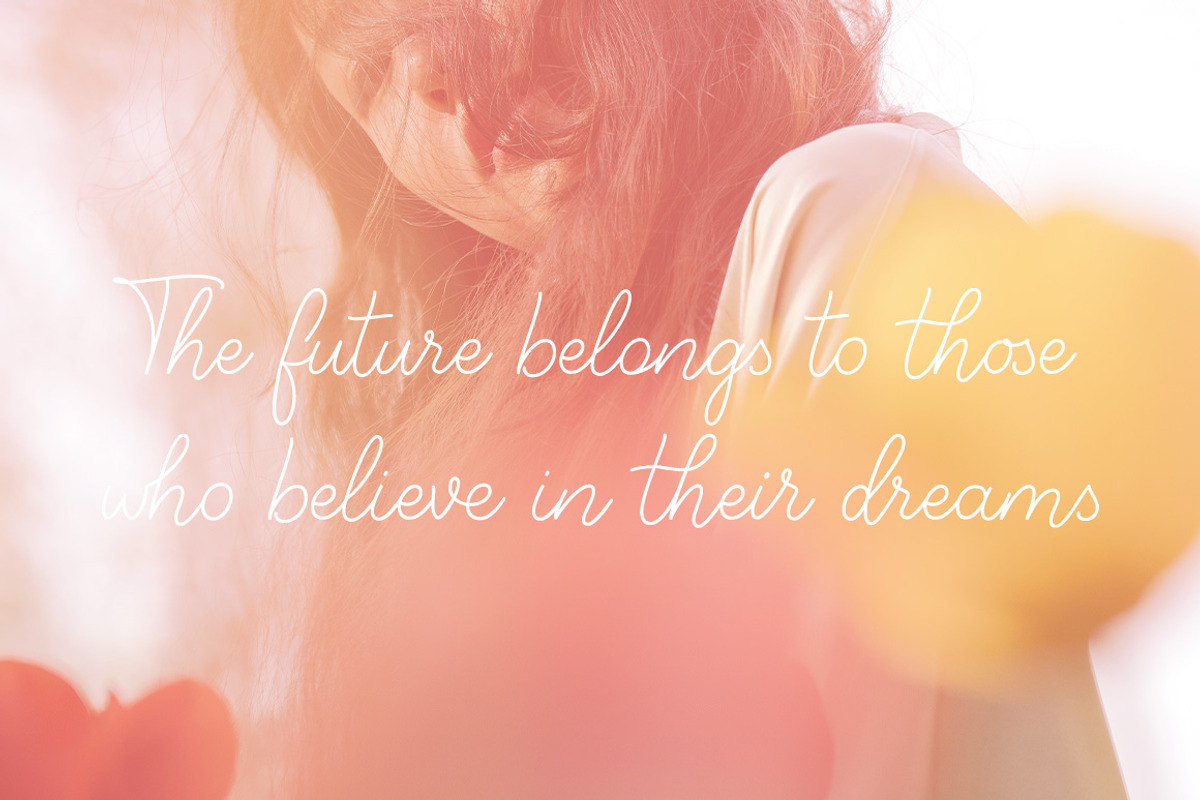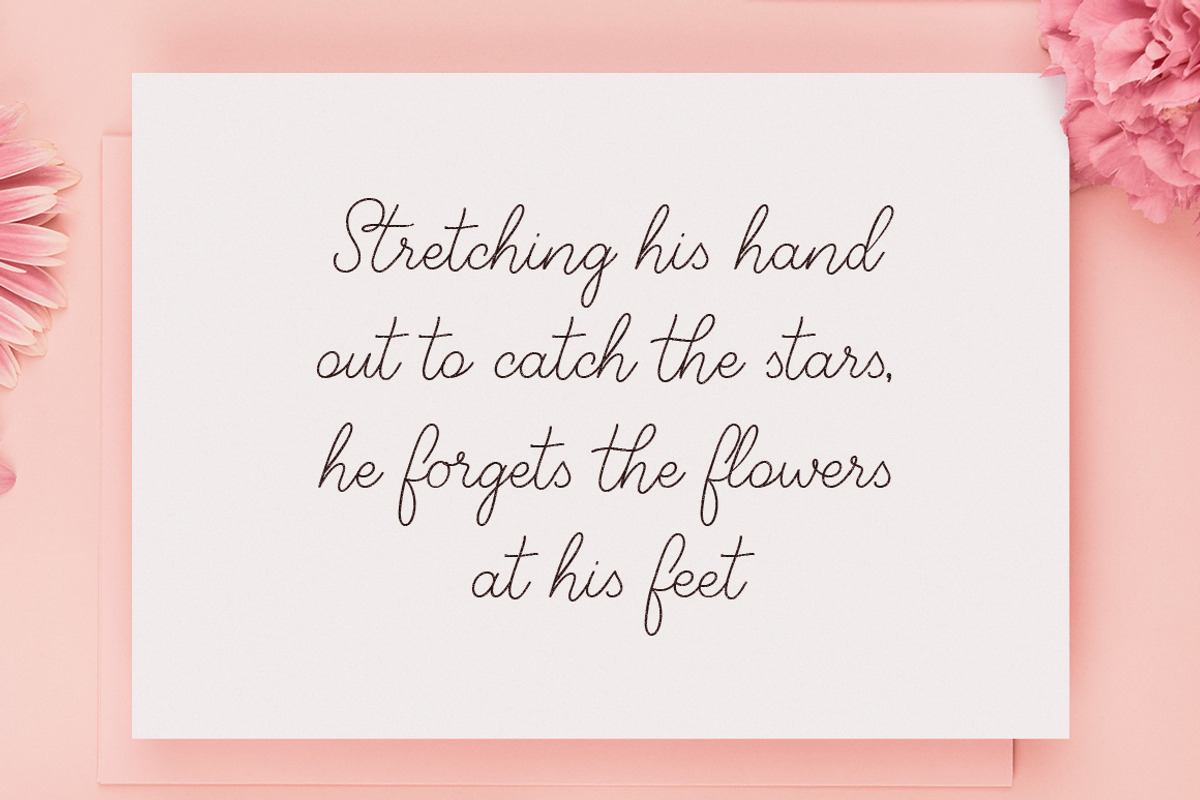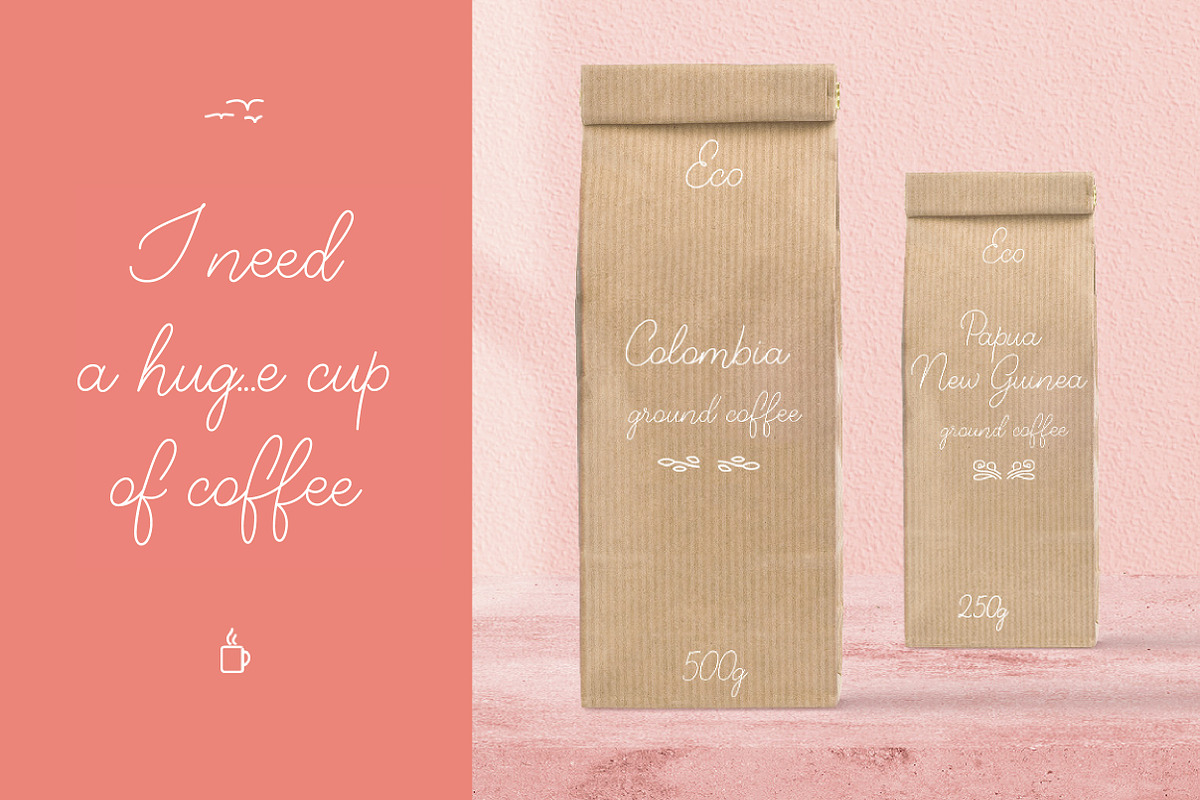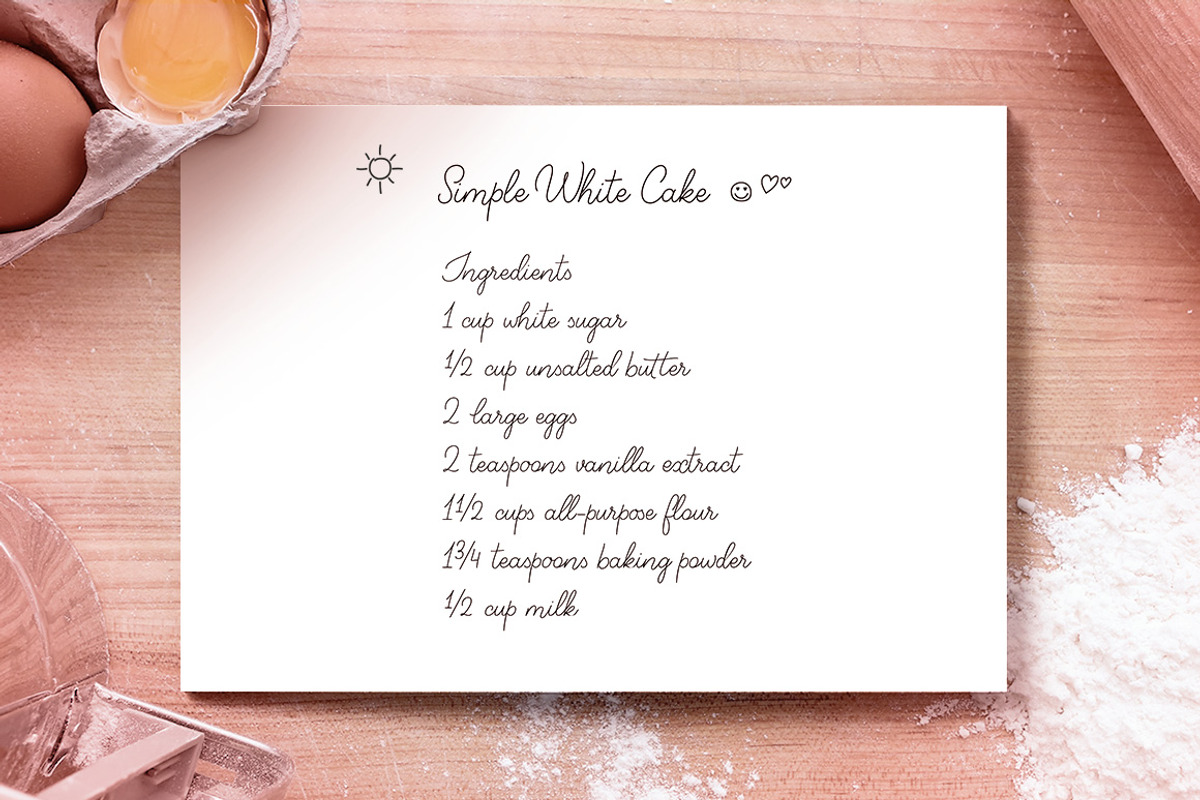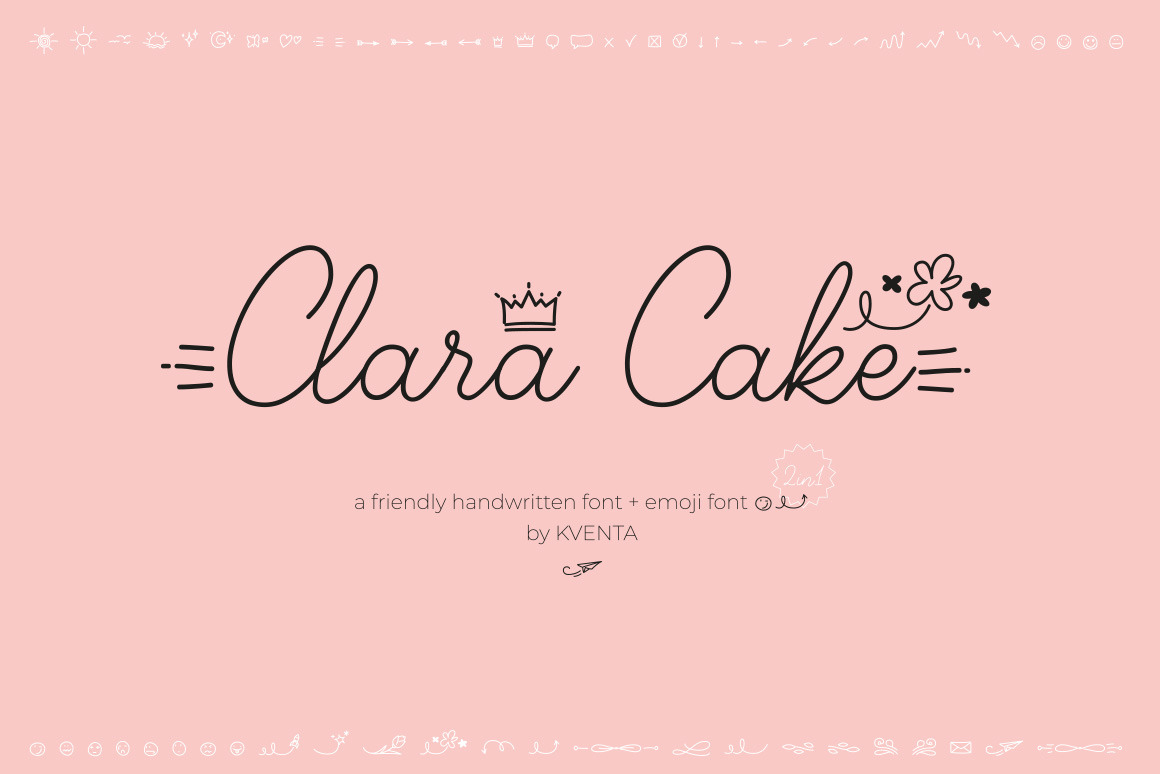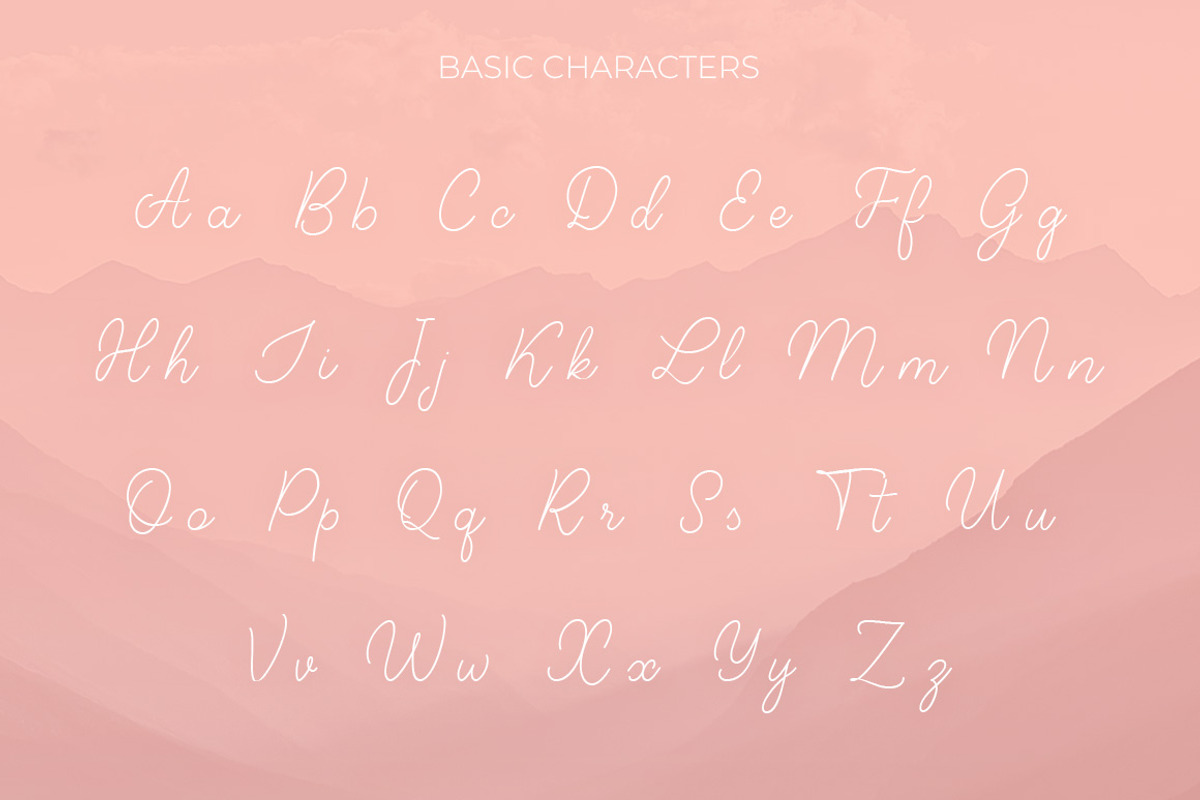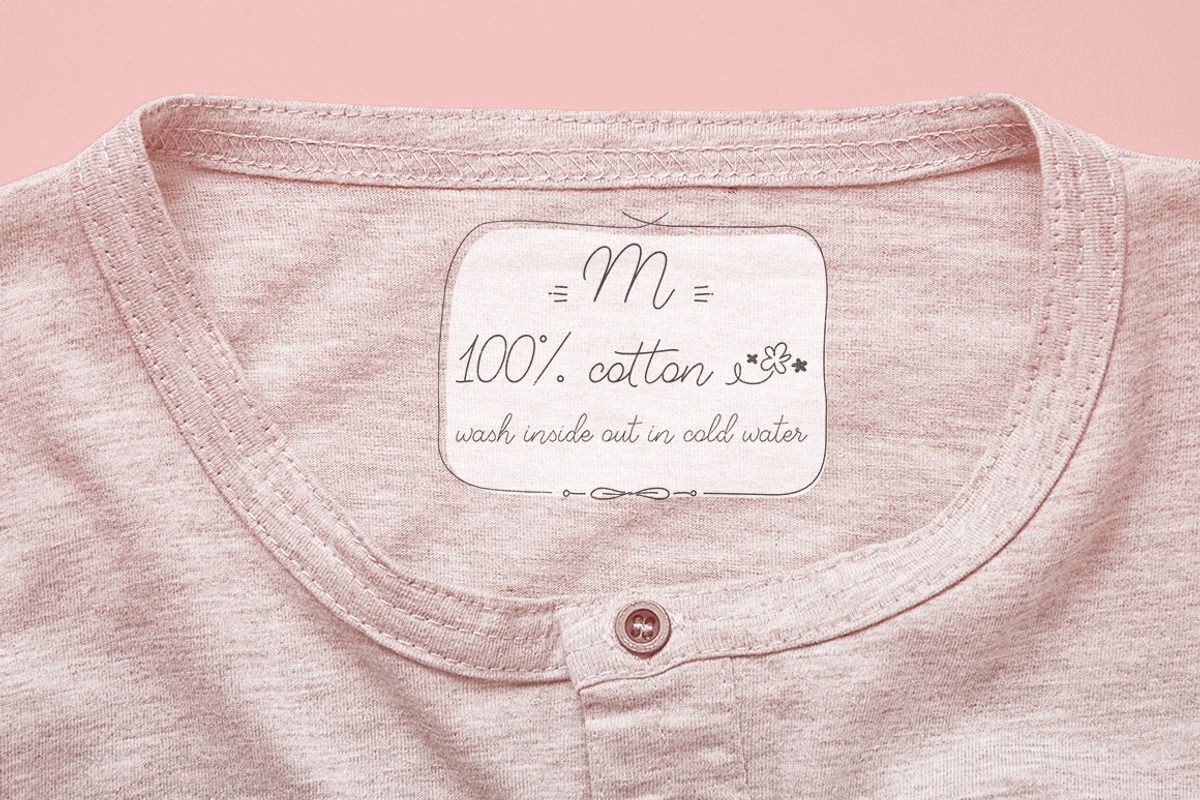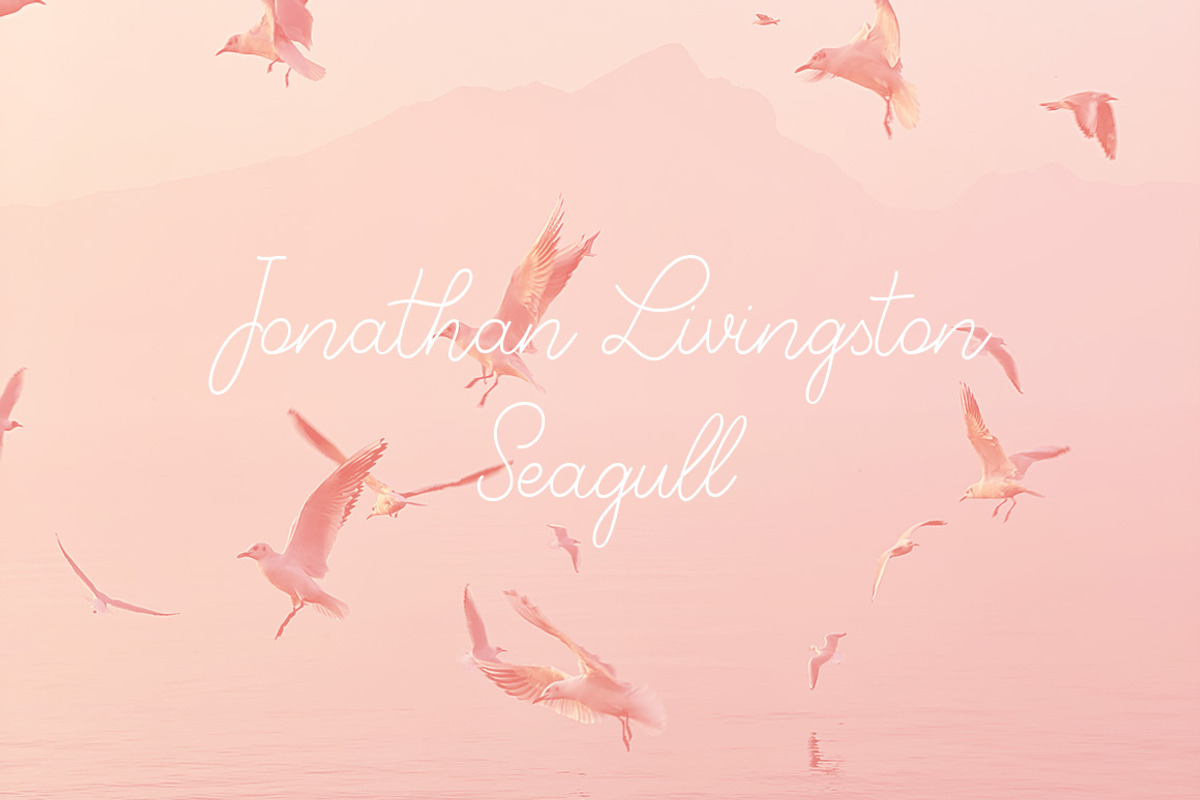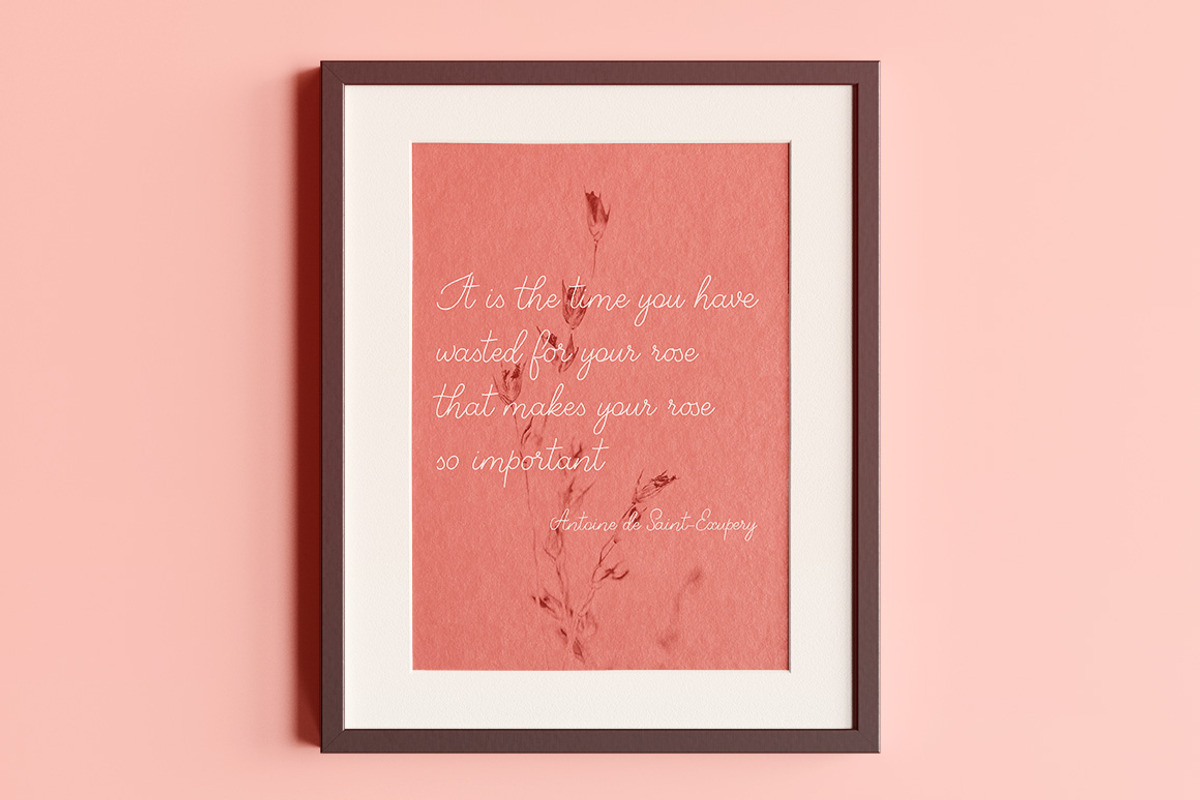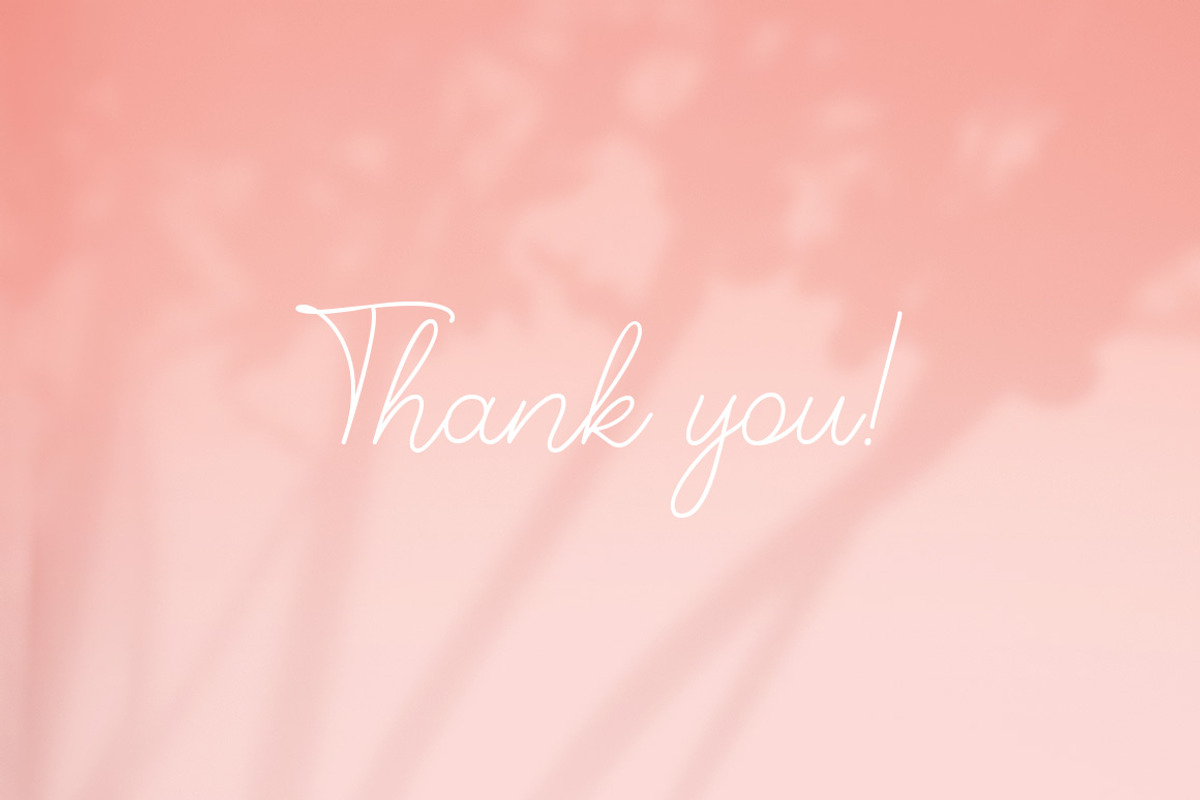
Clara Cake Script + emoji font
Clara Cake is a friendly handwritten font + BONUS Clara Cake emoji font
A light modern script font. Includes uppercase, and lowercase characters, punctuation, numerals, and ligatures. In order to use ligatures, you need a program that supports OpenType features such as Adobe Illustrator CS, Adobe Photoshop CC, Adobe Indesign, and Corel Draw. Please turn this feature on before using it!
Clara Cake emoji - is a hand-drawn icon set, perfect for creating beautiful quotes, social media posts, posters, cards, ads, packaging, etc. Includes: 72 emojis